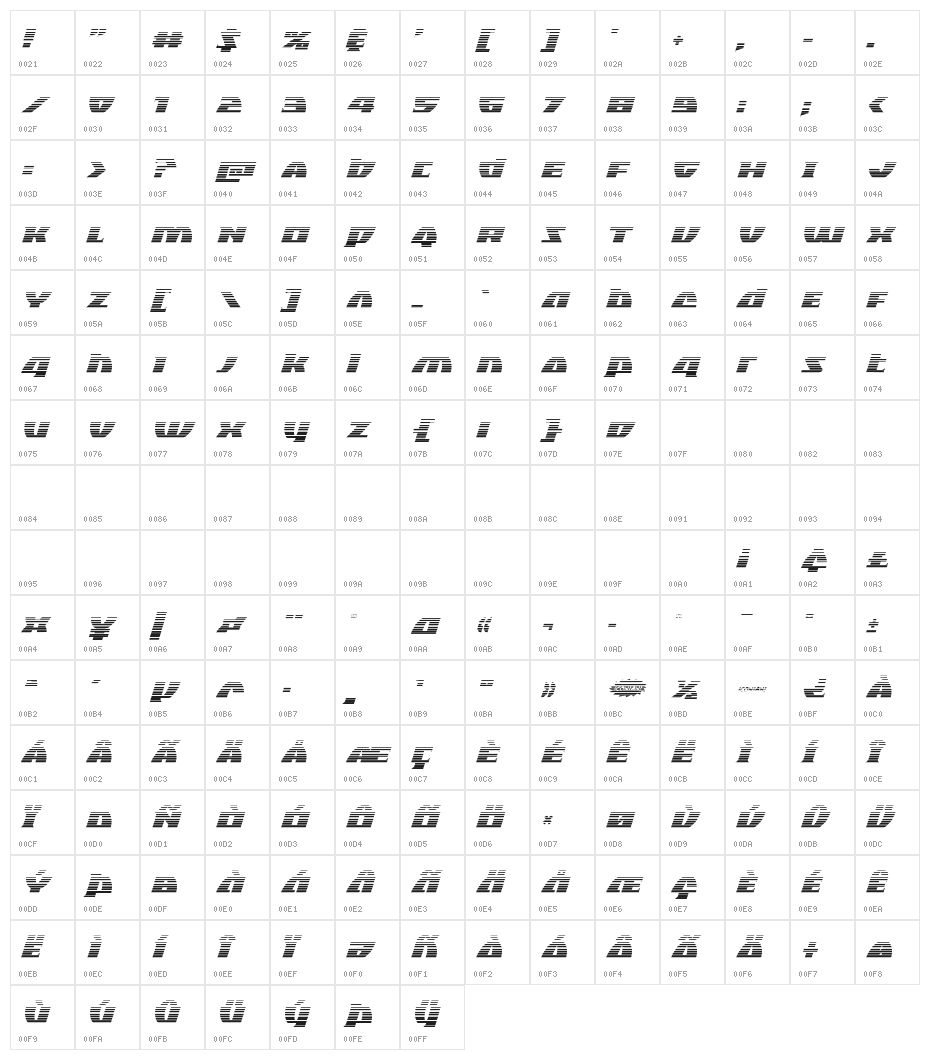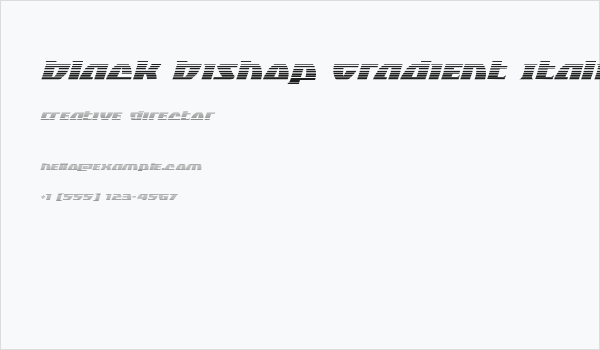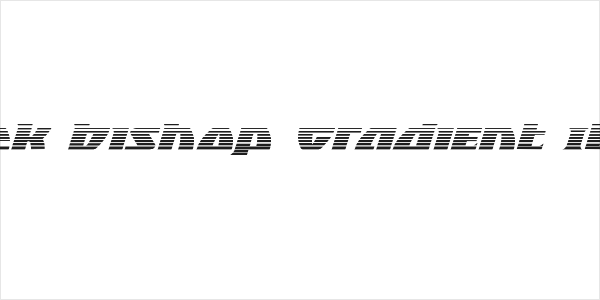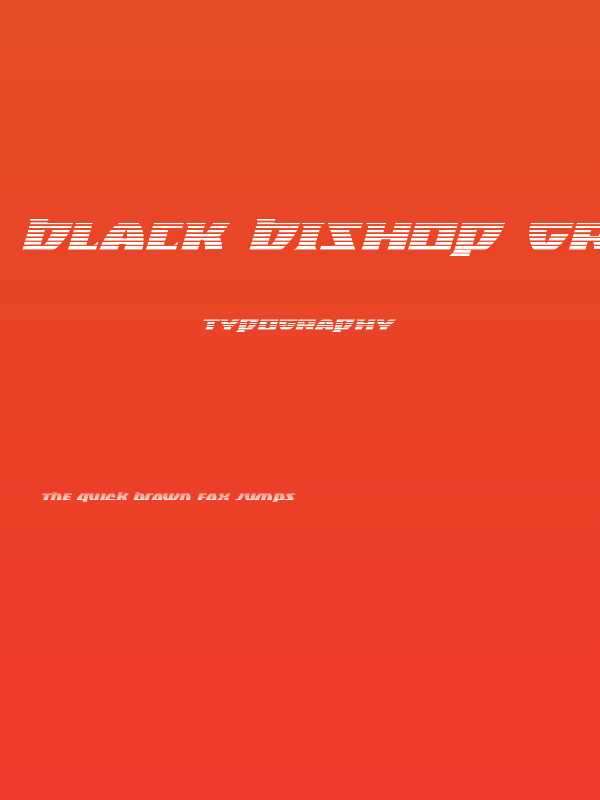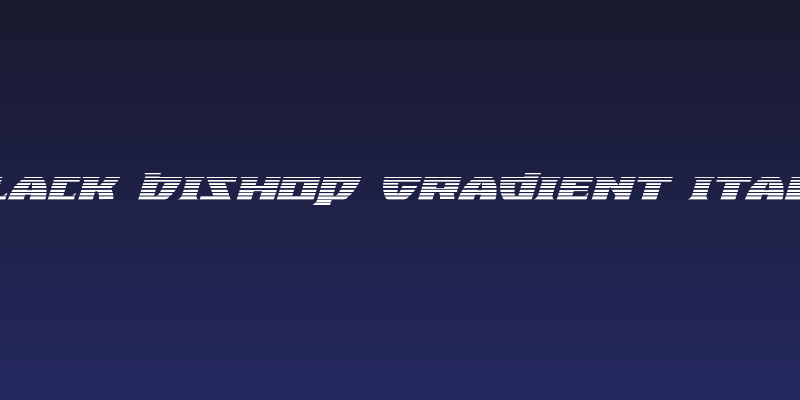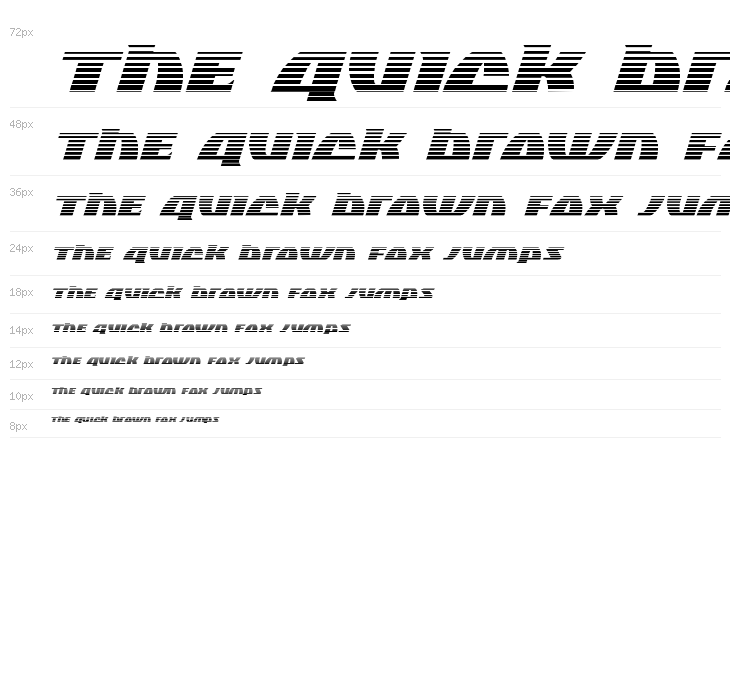
Black Bishop Gradient Italic Font
Black Bishop Gradient Italic Description
This font features a bold, italicized style with a unique gradient effect created by horizontal lines that form each character. The design is modern and dynamic, giving a sense of movement and energy. The uppercase and lowercase letters maintain a consistent style, with angular edges and a futuristic appearance. The numbers and special characters are equally stylized, ensuring a cohesive look across all elements. This font's distinct line pattern adds a textured, layered effect, making it stand out in any design.
| Proposed Projects | Ideal for futuristic branding, sports team logos, tech event posters, and dynamic web design elements. |